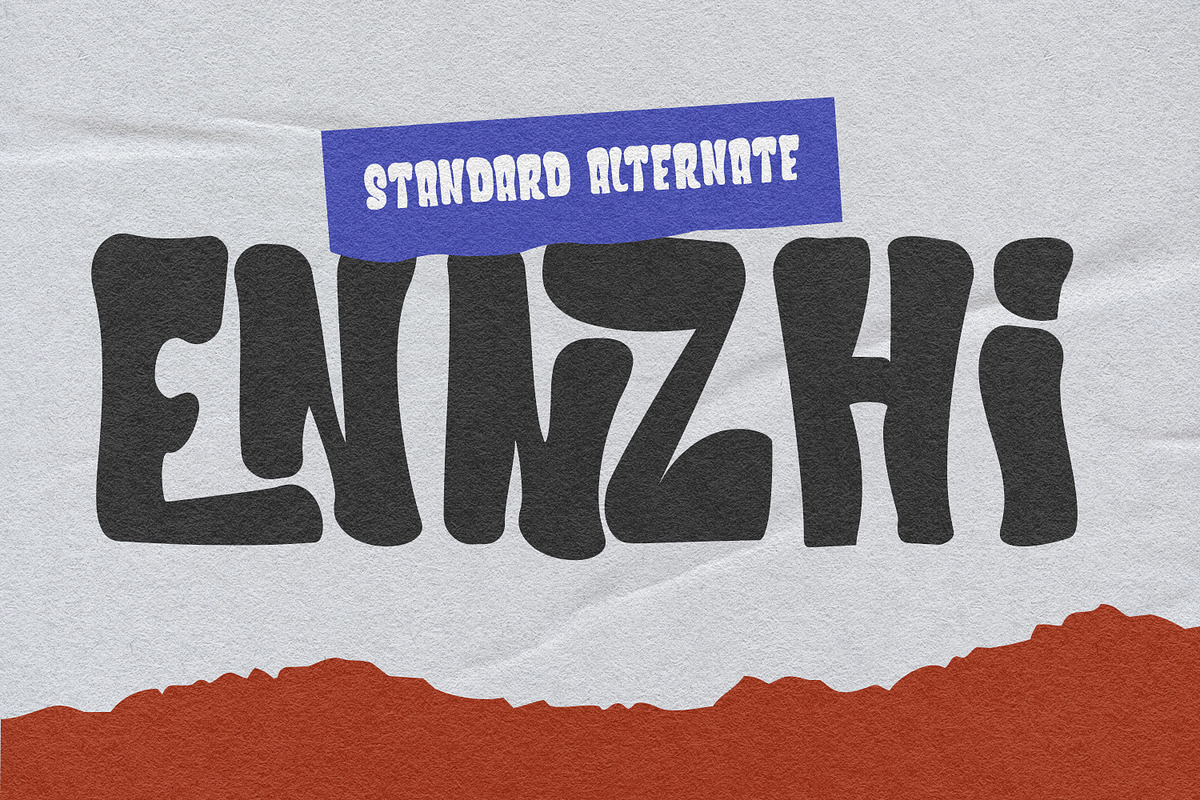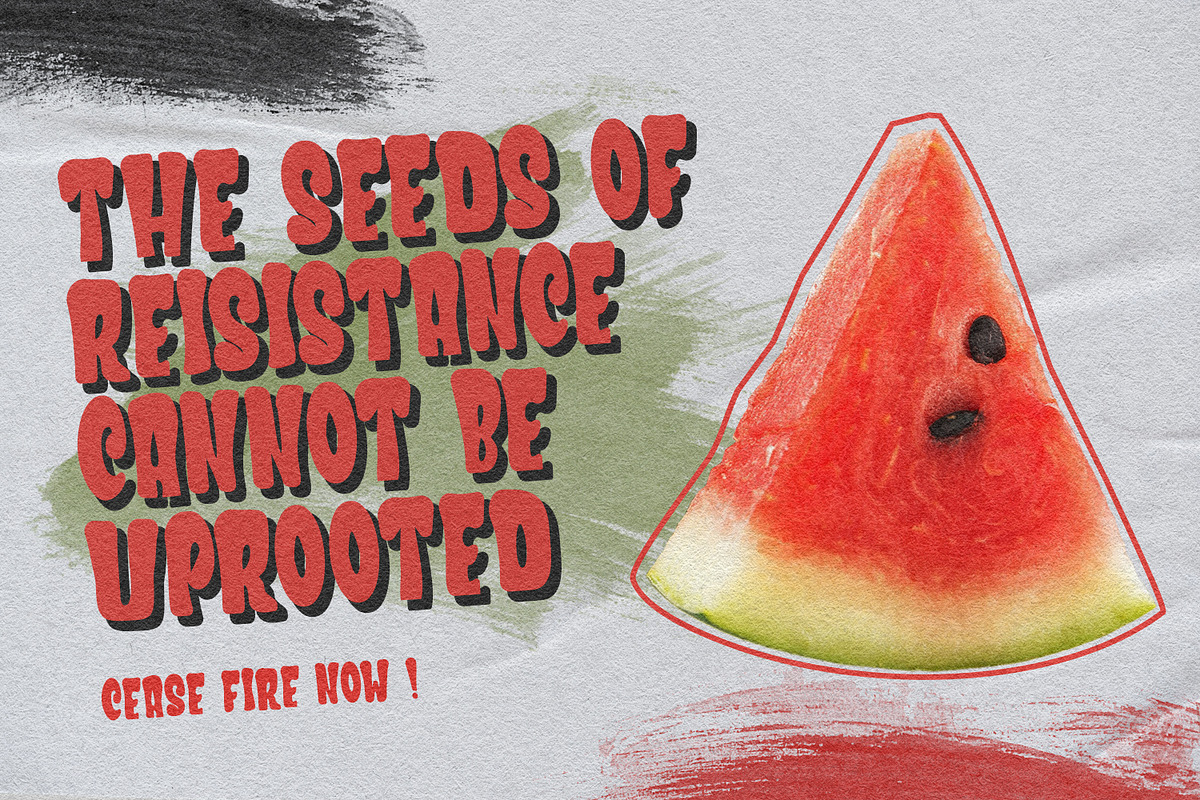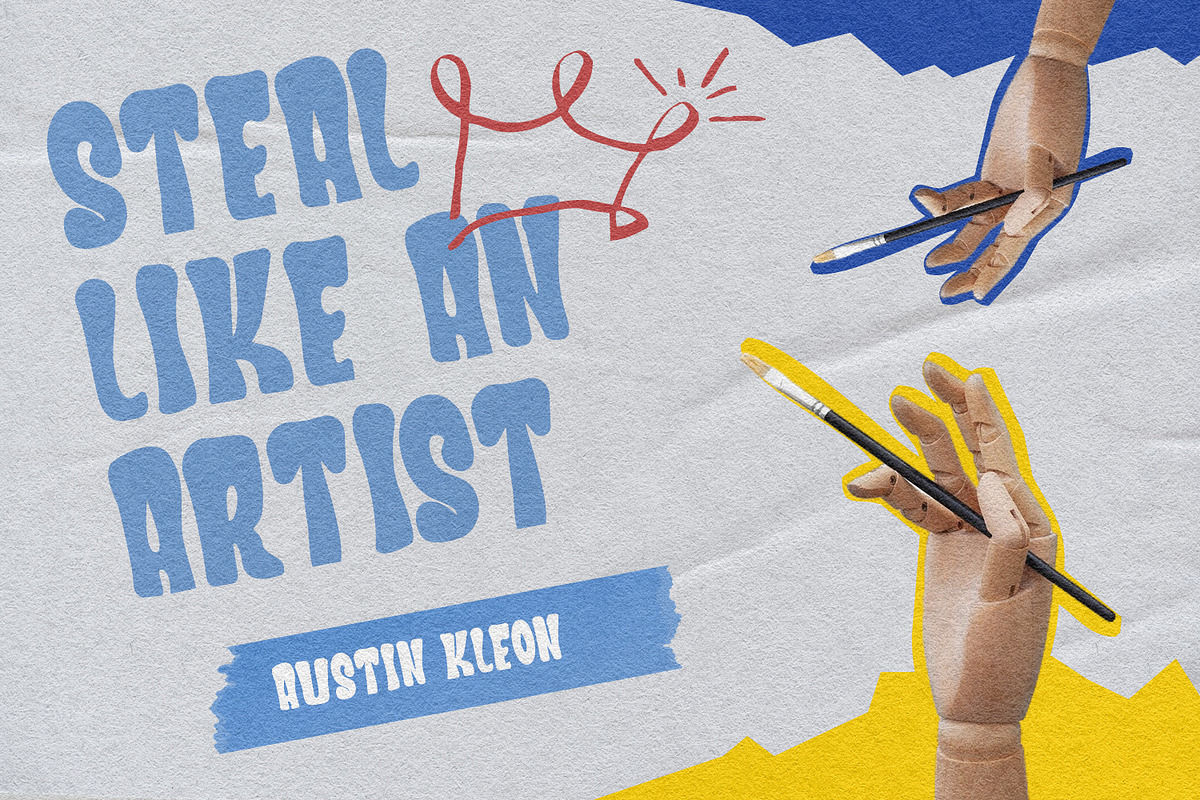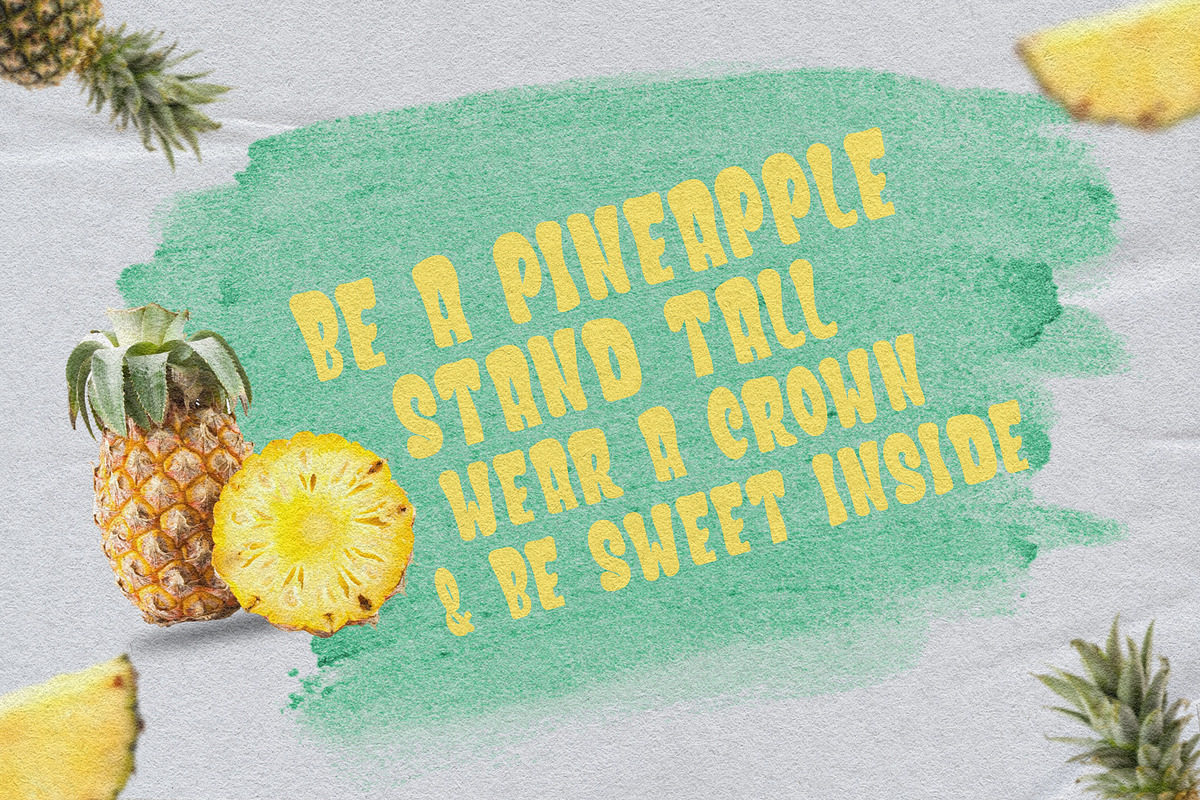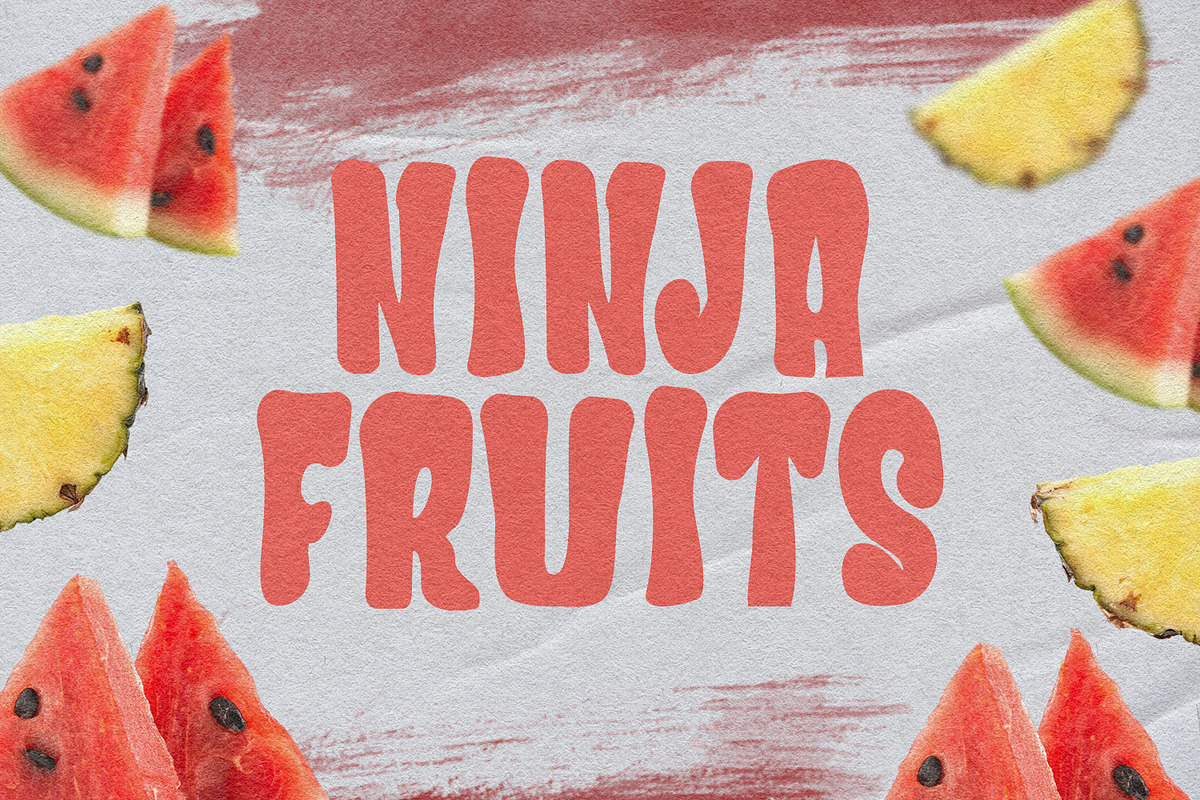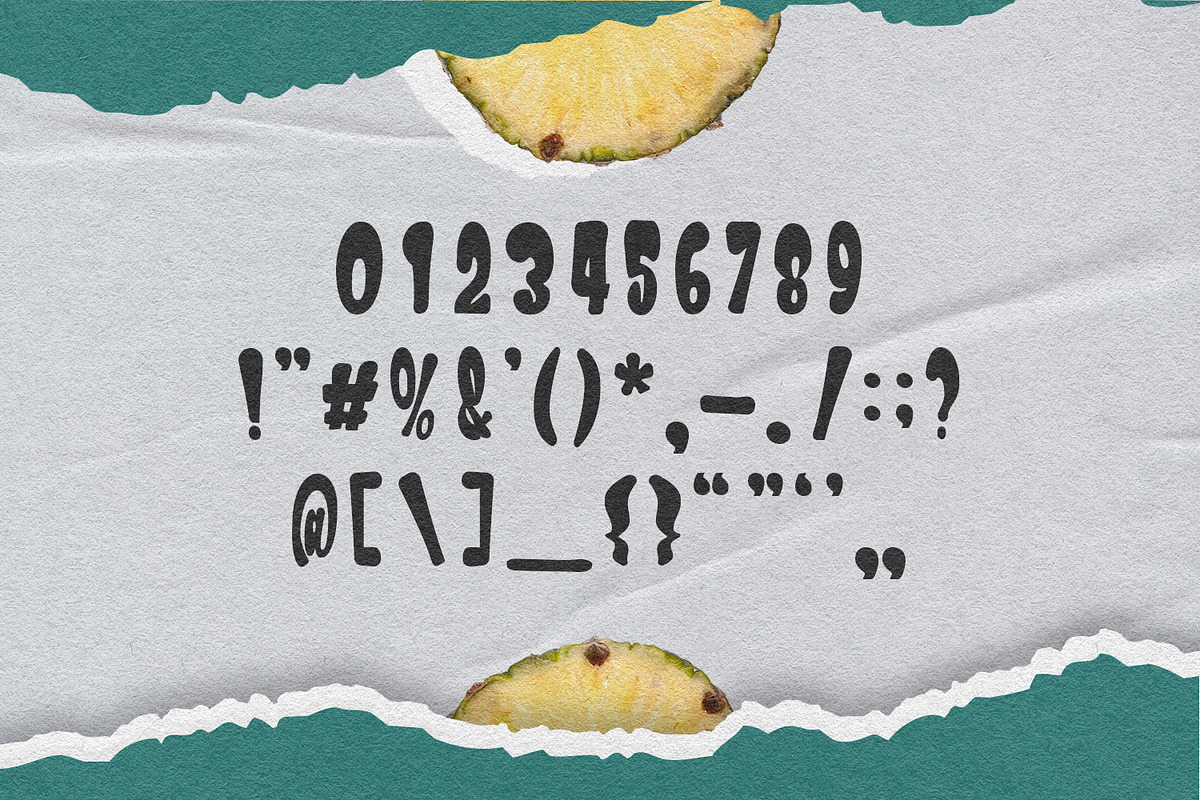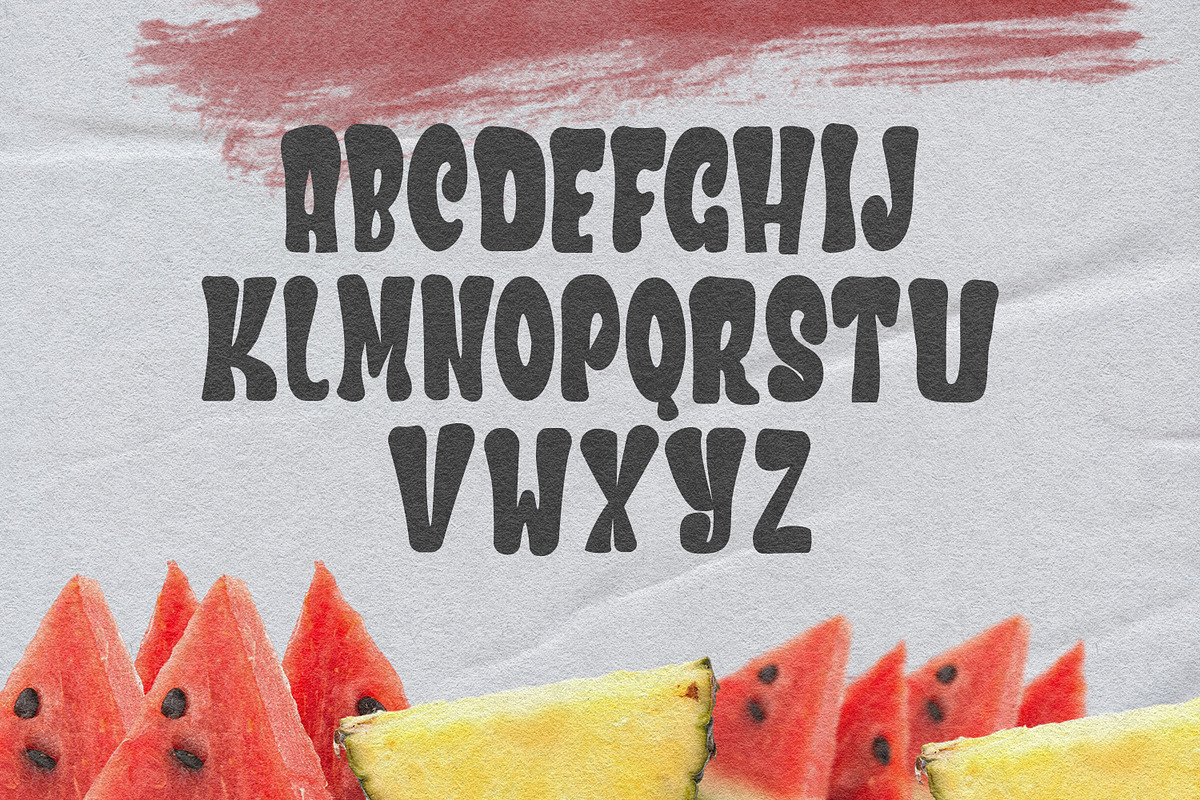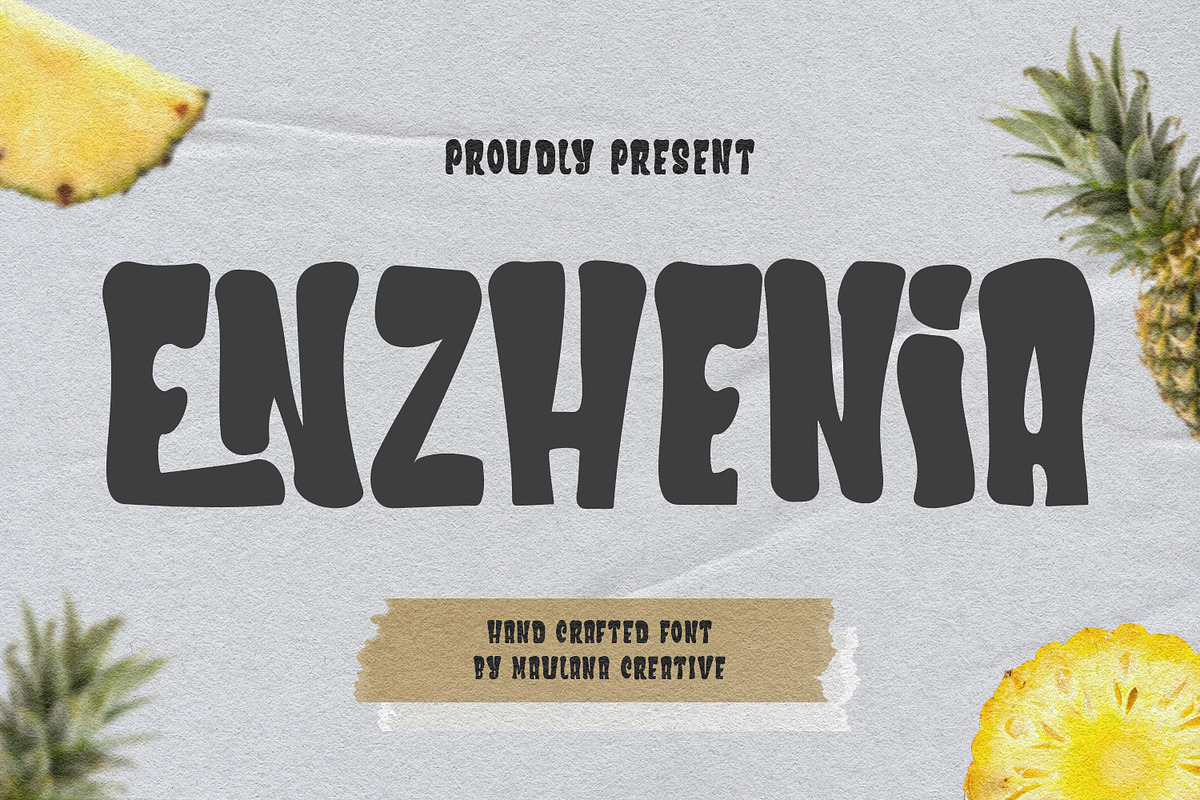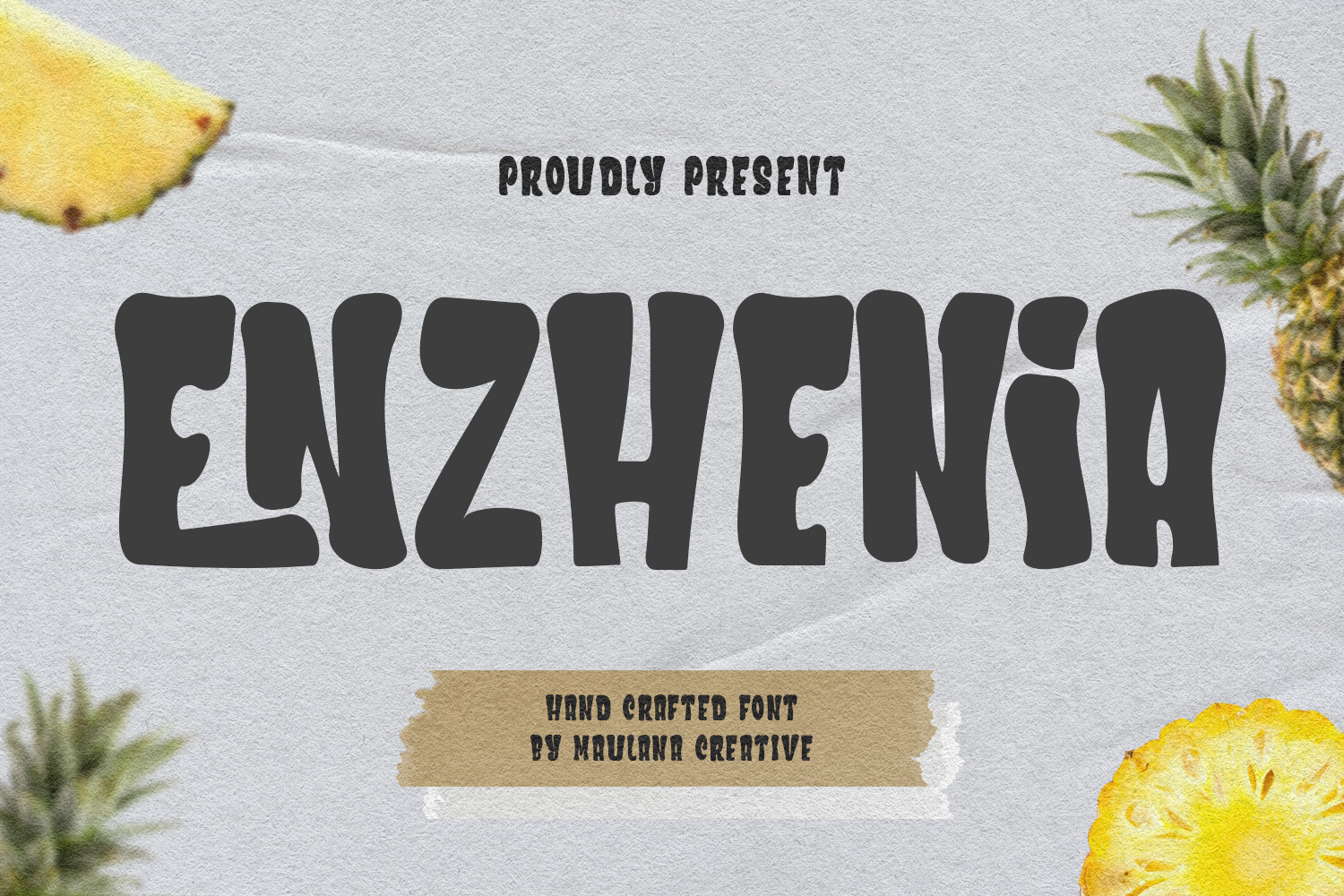
Enzhenia Stylish Display Font
Enzhenia stylish display typeface. With vintage stroke, fun character with a ligature and alternate. To give you an extra creative work. Enzhenia support multilingual language. This font is good for logo design, Social media, Movie Titles, Books Titles, a short text even a long text letter and good for your secondary text font with script or serif. Make a stunning work with Enzhenia stylish display typeface.